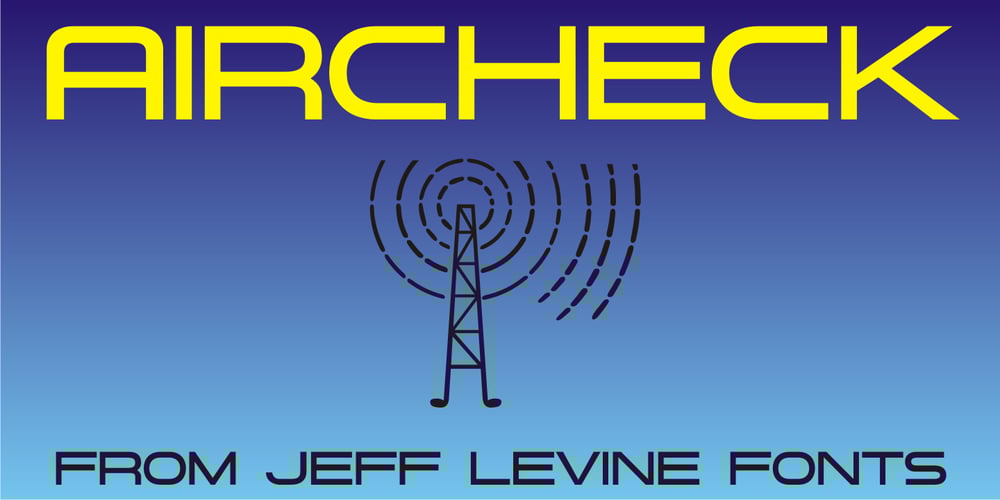
Aircheck JNL Font Family was designed by Jeff Levine and published by Jeff Levine. Aircheck JNL contains 1 styles and family package options. Inspired by building signage for the old CBS broadcasting facility in Los Angeles, Aircheck JNL is a bold, wide sans serif – reminiscent of Art Deco lettering of the 1940’s, and perfectly suited for headlines and titles that get attention.